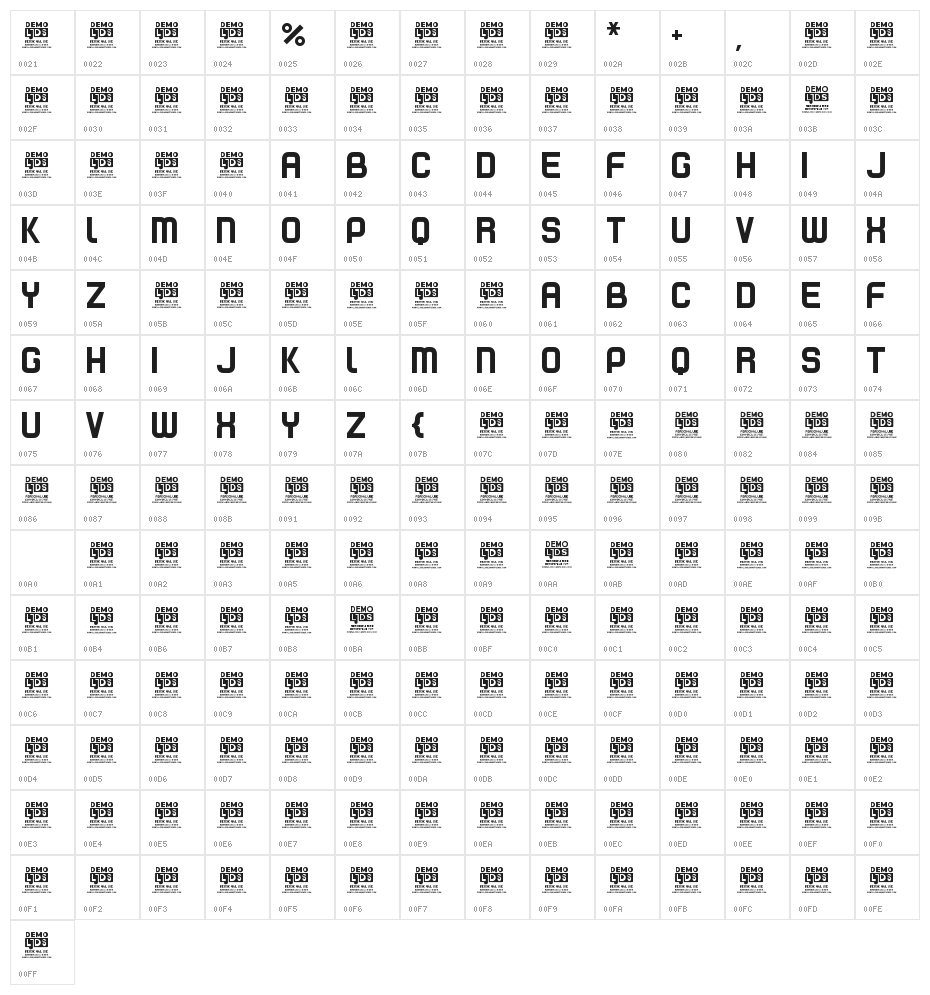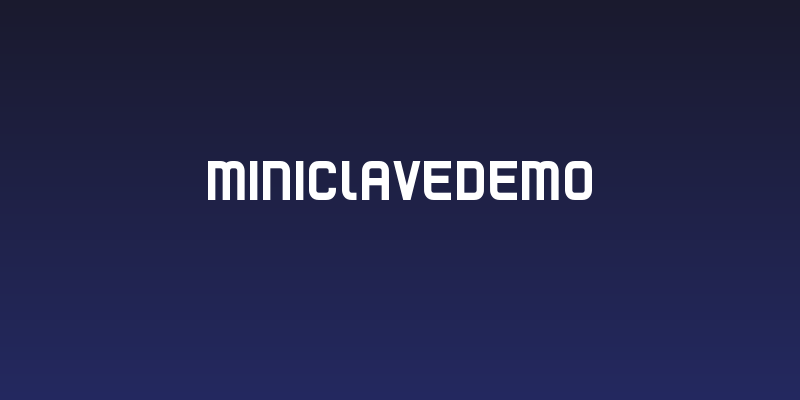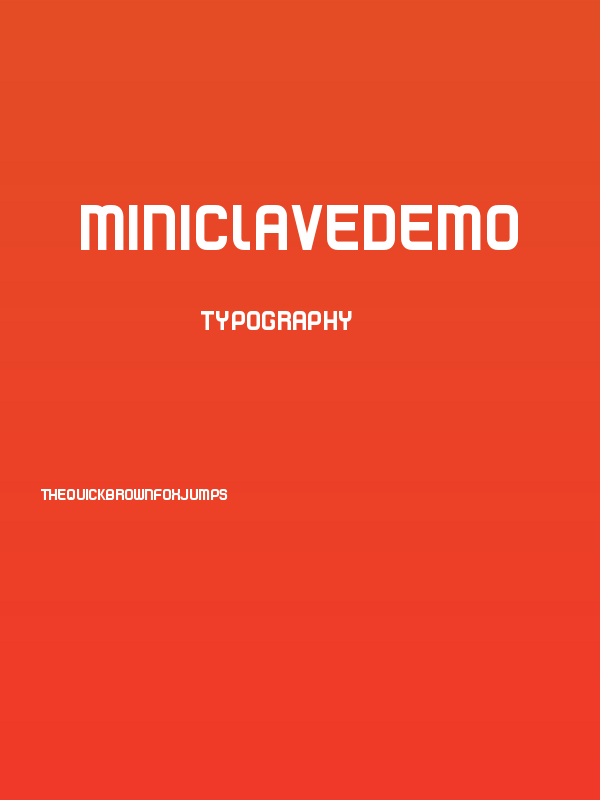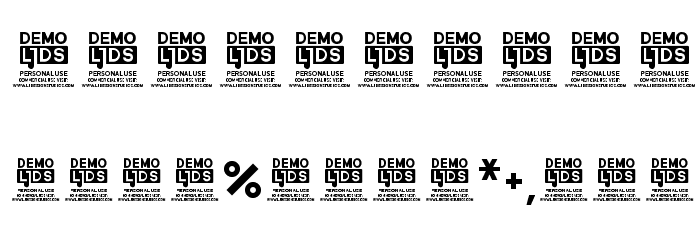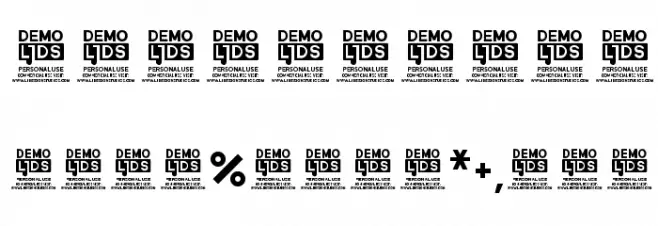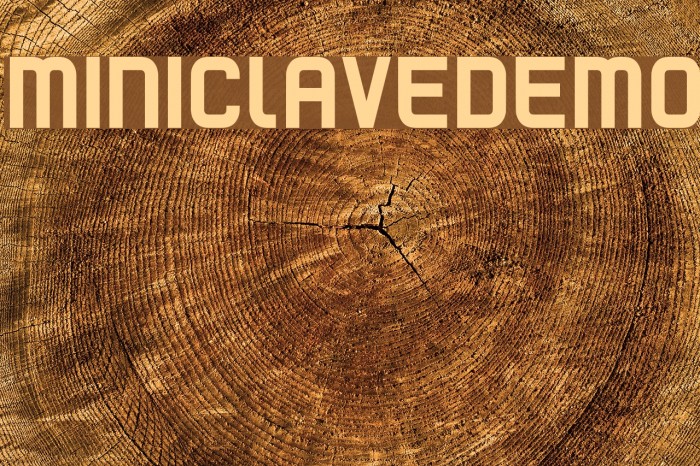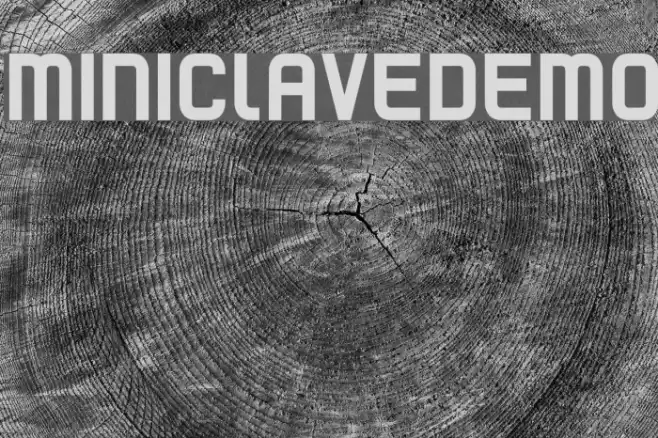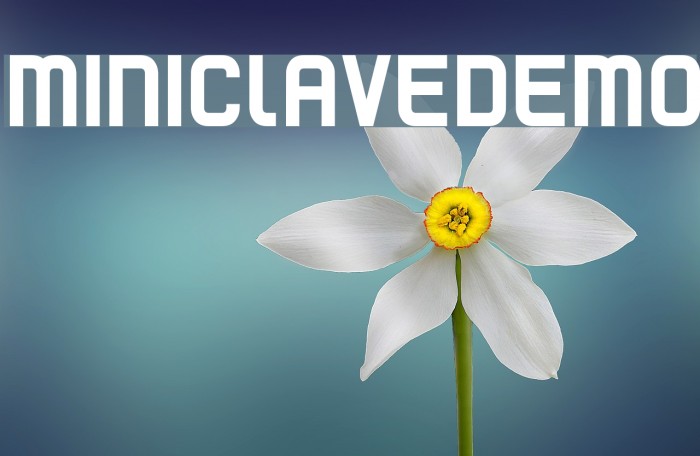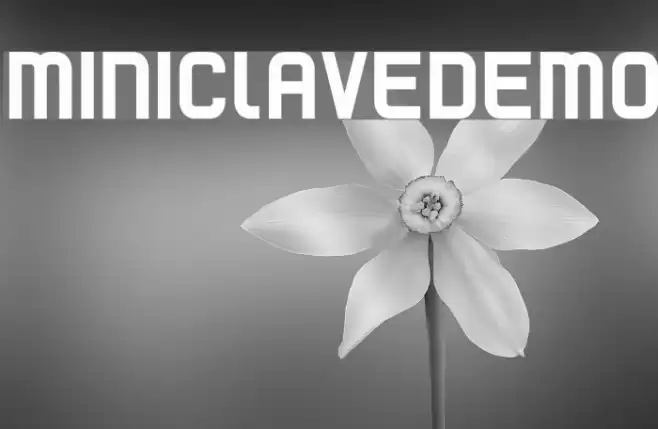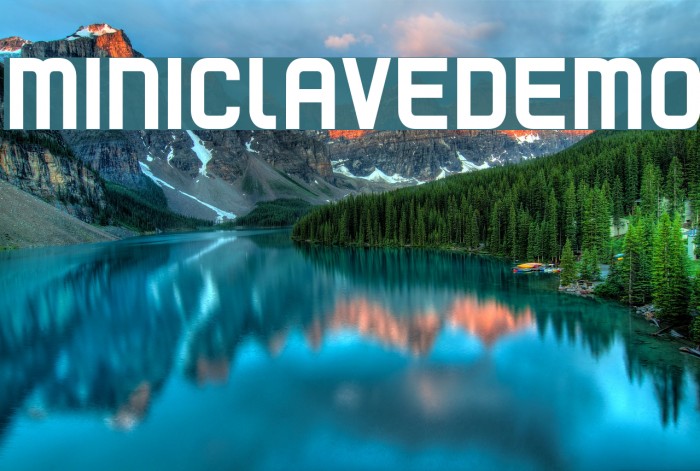
Mini clave DEMO Font
Mini clave DEMO Description
This font features a bold, geometric design with a modern aesthetic. The characters are constructed with consistent stroke widths, giving it a uniform appearance. The uppercase letters are particularly striking, with a blocky, sans-serif style that emphasizes clarity and readability. The lowercase letters maintain the same geometric structure, ensuring cohesion across different text cases. The numerals and special characters are designed to match the overall style, making them suitable for a variety of applications. The font's clean lines and lack of ornamentation contribute to its contemporary feel, making it ideal for digital and print media.
| Proposed Projects | Ideal for branding, headlines, posters, and digital media where a modern and bold statement is needed. |